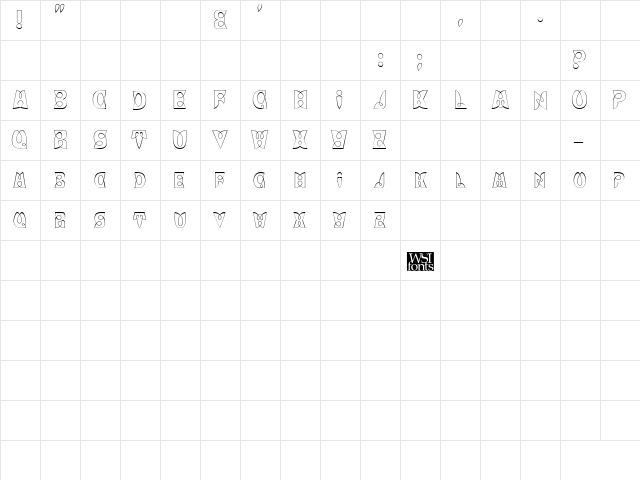
BrashCapsOutline Regular
Design Context for BrashCapsOutline Typeface
BrashCapsOutline brings ornamental detail and strong personality to headlines and identities, where visual impact matters more than quiet functionality.
Font Pairing: Pair with a clean neutral sans-serif for body copy to let BrashCapsOutline's character lead without overwhelming the composition.
Pro Tip: Use BrashCapsOutline exclusively at display sizes — it was designed to be seen, not read at length. Let a neutral companion handle body copy.